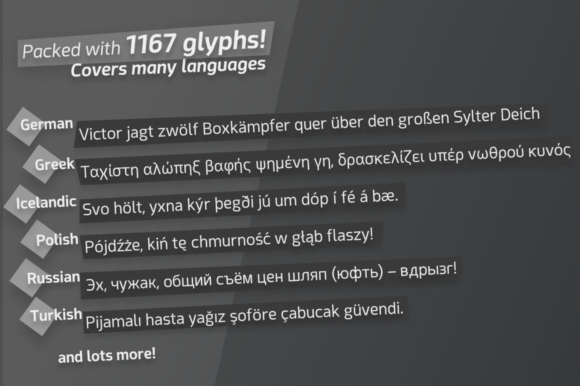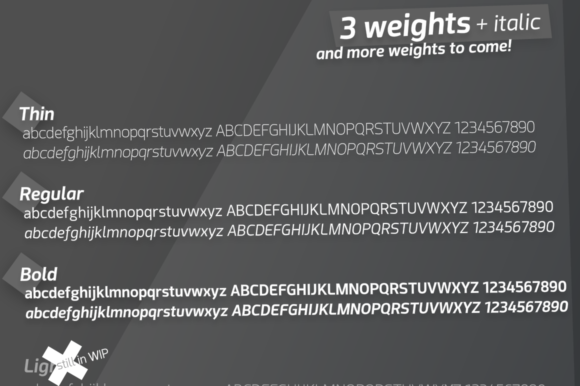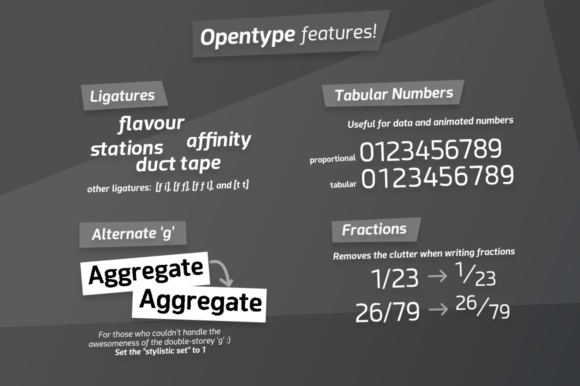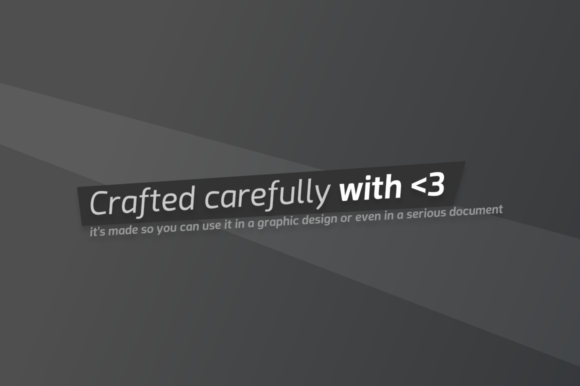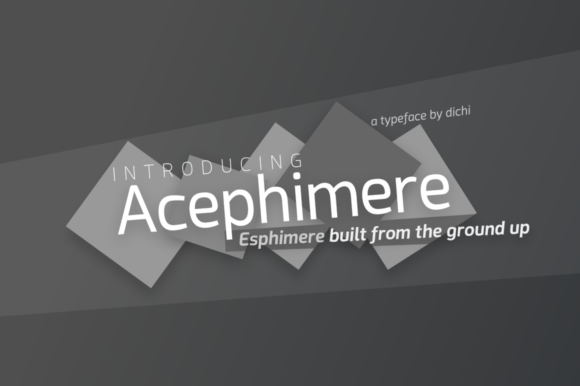
Acephimere Font: The Ultimate Sans Serif for Designers and Crafters
In the world of typography, a versatile font can make all the difference in the success of a design project. Introducing Acephimere, a sans serif font that boasts incredible flexibility and a wide range of applications. Whether you’re working on documents, graphic designs, or any other project that requires a high-quality font, Acephimere is the perfect choice.
What Makes Acephimere So Special?
Acephimere’s greatest strength lies in its versatility. This font is designed to be used in a variety of contexts, from formal documents to creative graphic designs. Its clean and modern sans serif design makes it easy to read and visually appealing. Moreover, Acephimere covers characters for most languages, making it a truly global font that can be used by designers and crafters all over the world.
OpenType Features for Enhanced Typography
One of the standout features of Acephimere is its range of OpenType features. These features allow designers to enhance the typography of their projects, both functionally and aesthetically. With Acephimere, you can take advantage of advanced typographic capabilities, such as ligatures, stylistic alternates, and more. This means that you can create complex and beautiful text designs with ease, adding a professional touch to your work.
Use Acephimere in Various Projects
The possibilities for using Acephimere are endless. Here are just a few examples of projects where Acephimere can shine:
- Documents: Use Acephimere for reports, presentations, and other business documents. Its clear and readable design makes it perfect for conveying information.
- Graphic Designs: Acephimere is ideal for graphic design projects, such as brochures, posters, and logos. Its modern look and feel will give your designs a professional edge.
- Digital Media: Acephimere can also be used in digital media, such as websites, social media graphics, and email newsletters. Its versatility and language support make it a great choice for global brands.
Acephimere offers a range of benefits for designers and crafters, including:
- Time-saving: With Acephimere, you can work more efficiently, as you won’t need to spend time searching for and adjusting different fonts.
- Consistency: Acephimere’s consistent design ensures that your typography looks cohesive across different projects and applications.
- Creativity: The font’s advanced OpenType features give you the creative freedom to experiment with different typographic styles and effects.
In conclusion, Acephimere is a highly versatile sans serif font that offers a range of benefits for designers and crafters. Its clean design, language support, and advanced OpenType features make it the perfect choice for a wide range of projects. Whether you’re working on documents, graphic designs, or digital media, Acephimere is sure to become your go-to font. So why wait? Download Acephimere today and take your typography to the next level!
Key Features of Acephimere Font:
- Highly versatile sans serif font
- Covers characters for most languages
- Advanced OpenType features for enhanced typography
- Suitable for documents, graphic designs, and digital media
- Clean and modern design